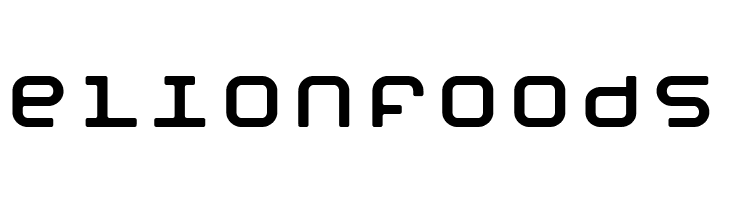
A bold, modern sans-serif font with geometric influences and rounded edges.
A modern, monospaced font with rounded edges and consistent stroke weight.
A monospaced font with a digital, retro aesthetic and geometric design.